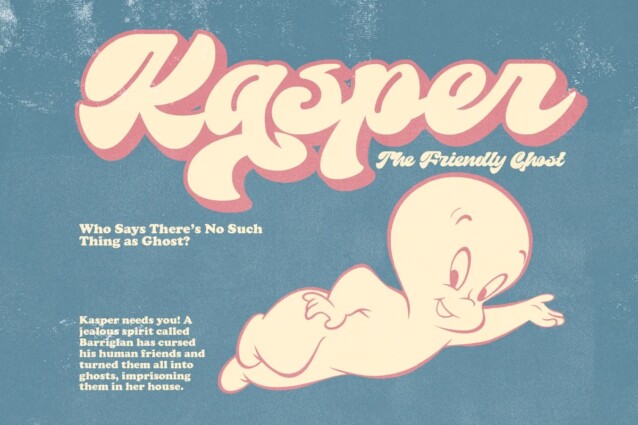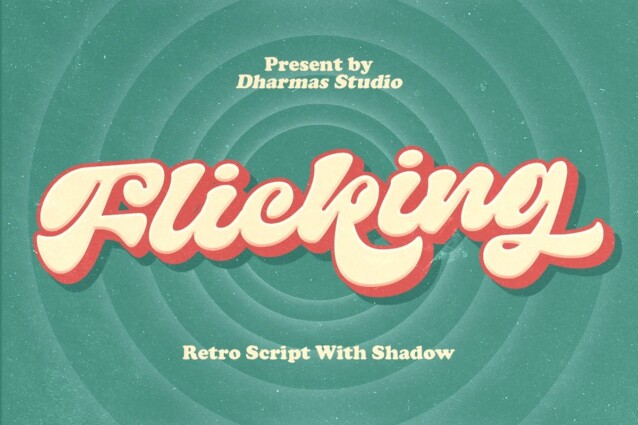
Flicking Font
Flicking Font is a retro bold script which will bring you back to 60s feel. With its bold retro script and the added Shadow version, creating that perfect vintage look is a breeze. This typeface has the extrude version so you can create your retro effect font in ease. This font perfectly made to be applied especially in logo, and the other various formal forms such as invitations, labels, logos, magazines, books, greeting / wedding cards, packaging, fashion, make up, stationery, novels, labels or any type of advertising purpose.